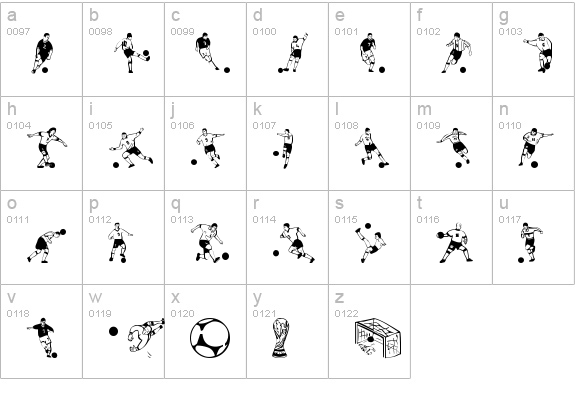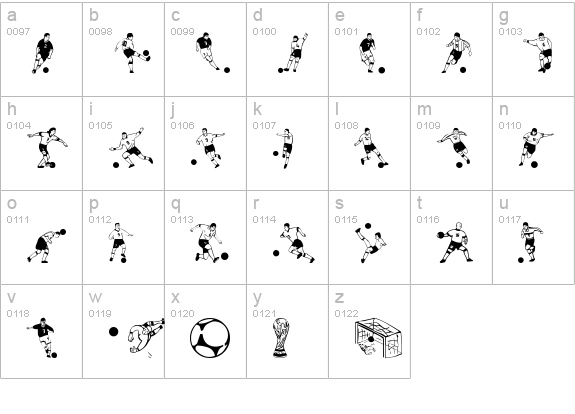
Soccer Dance Font Details
Introducing the captivating and energetic Soccer Dance font! This dynamic typeface is designed to encapsulate the exhilarating spirit of soccer and the graceful movements of dance, merging the two into a harmonious and visually stunning font. Soccer Dance font is crafted with meticulous attention to detail, featuring sleek lines and bold curves that embody the fluidity and agility of professional athletes on the field. The letters are infused with a sense of motion, creating a captivating visual experience that effortlessly captures the essence of the beautiful game. This font is not only visually captivating but also highly versatile, making it perfect for a wide range of design projects. Whether you're creating sports-related graphics, team logos, event posters, or even personal projects, Soccer Dance font will undoubtedly make a bold and impactful statement. One of the best aspects of Soccer Dance font is that it is freely available to download at FontsMarket.com. This means that you can easily access this incredible font without any hassle or cost, making it a valuable asset for designers, enthusiasts, and soccer fans alike. The font's availability for free ensures that everyone has the opportunity to utilize its captivating and energetic aesthetic in their creative endeavors. Embrace the dynamic and captivating nature of soccer and dance with the mesmerizing Soccer Dance font. Download it for free today at FontsMarket.com and elevate your designs to new heights of creativity and excitement.